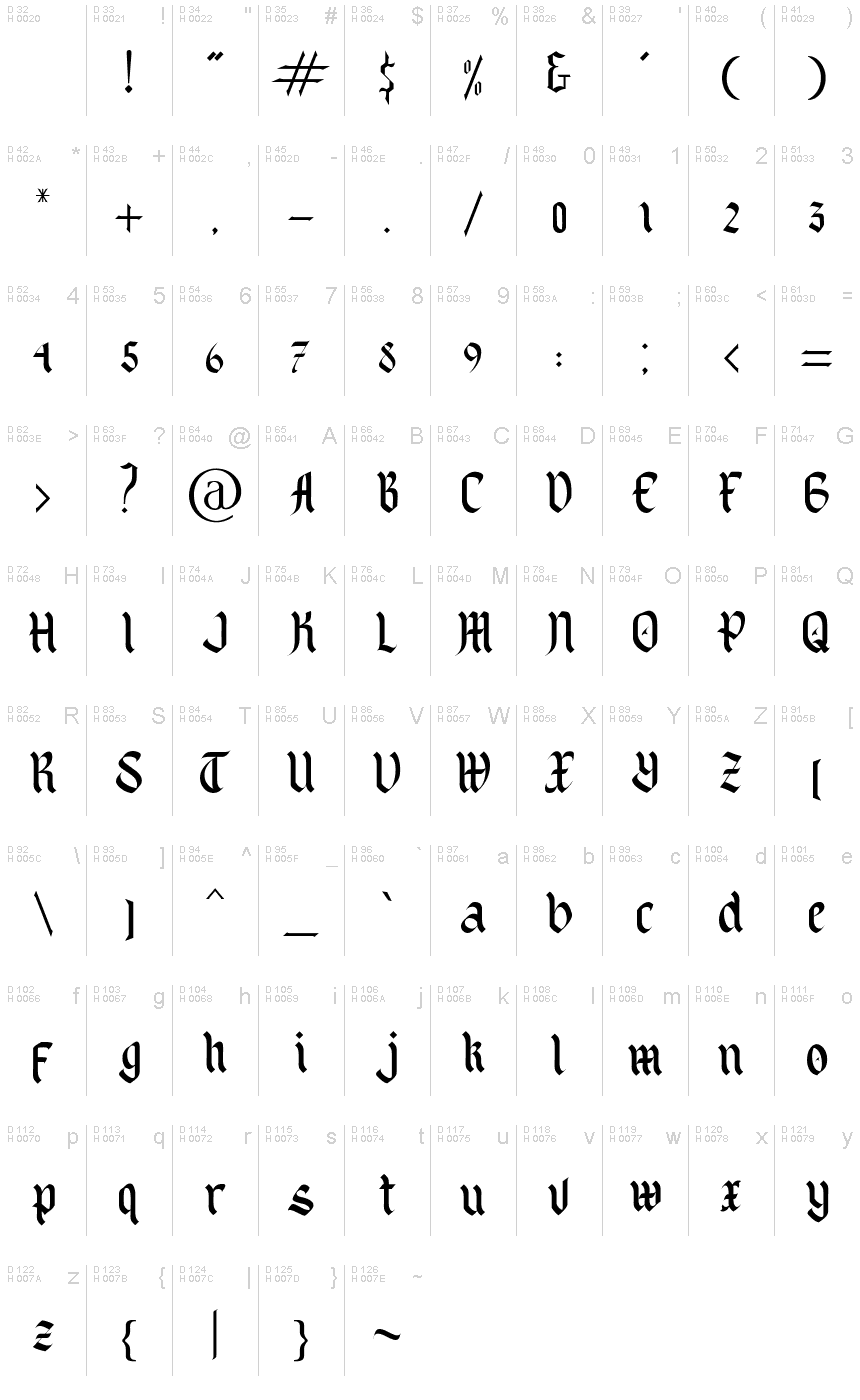
Black Spot
Black Spot, designed by Kong Font, is a modern gothic font that is perfect for projects looking to add a touch of edginess. With its semi-light weight and condensed width, Black Spot is both sleek and legible. Use it for anything from website headers to product packaging. Its bold style will make your designs stand out from the crowd while still maintaining an air of elegance. Whether you're creating album covers or fashion branding, Black Spot's unique aesthetic is sure to make a statement.